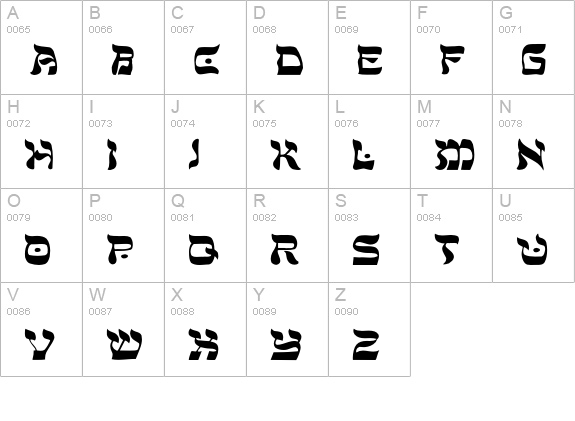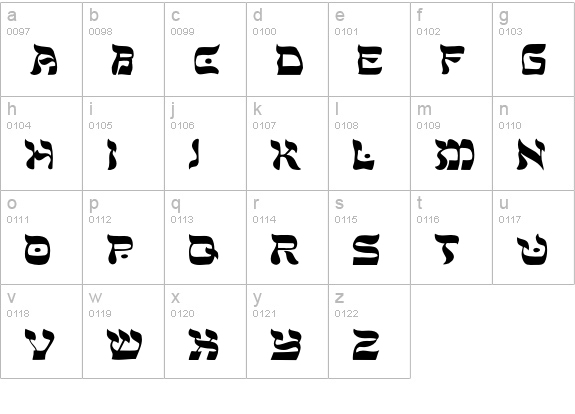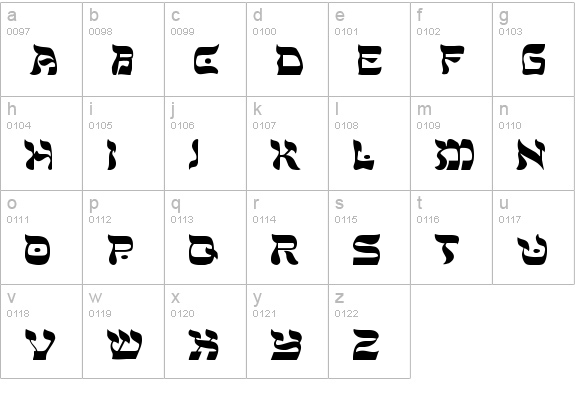
Peaceman Font Details
Peaceman font is a stunning display typeface that exudes elegance and sophistication. With its sleek lines and refined curves, this font is perfect for creating eye-catching headlines, logos, and branding materials. Its unique design captures a harmonious balance between modernity and classicism, making it versatile for various design projects. What sets Peaceman font apart is not only its aesthetic appeal but also its accessibility. This font is available for free download at FontsMarket.com, allowing designers and creatives to easily incorporate it into their work without any financial constraints. Whether you are a professional designer or a hobbyist, Peaceman font offers a high-quality typographic solution that won't break the bank. The versatility of Peaceman font is further enhanced by its extensive character set, including uppercase and lowercase letters, numbers, punctuation marks, and special characters. This comprehensive collection ensures that you have all the tools you need to bring your creative vision to life. Furthermore, Peaceman font is incredibly easy to use, with a user-friendly interface that makes it accessible to designers of all skill levels. Whether you are a seasoned professional or just starting out, you can quickly and effortlessly incorporate this font into your designs. In addition to its aesthetic and accessibility, Peaceman font also offers excellent legibility, making it suitable for a wide range of applications. From print materials such as posters and brochures to digital designs like websites and social media graphics, this font ensures that your message is clear and easily readable. Overall, Peaceman font is a remarkable typeface that combines style, accessibility, and functionality. Its elegant design, extensive character set, and free availability at FontsMarket.com make it a must-have for designers looking to elevate their projects. Whether you are working on a personal or professional endeavor, Peaceman font is sure to enhance your designs and captivate your audience.